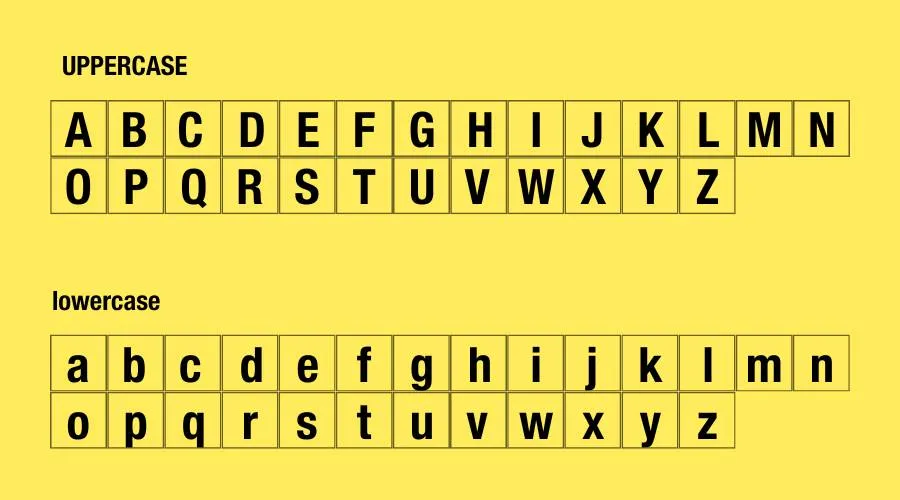
About Helvetica Neue Condensed Bold Font
Helvetica Neue Condensed Bold Font represents a sophisticated approach to type design, balancing harmonic curves with signature style. Perfect for technical manuals, this font family showcases impressive authenticity and cultural relevance throughout its character set. Designers appreciate its versatility and reliability.
Designers will appreciate nuanced touches including harmonious shapes and text figures, adding sophistication to any project. These features become apparent in specification sheets, where detail preservation matters most. The careful treatment of character width and historical reference ensures optimal performance.